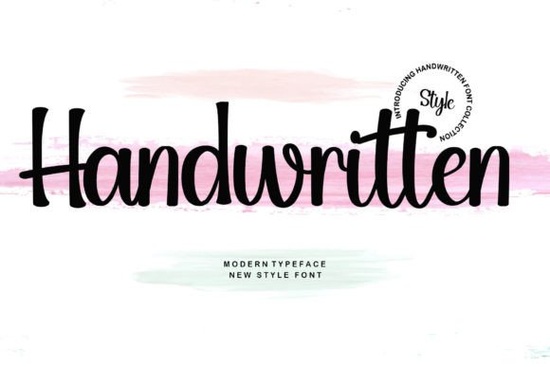
A good handwritten font can completely change the feel of a design. Whether you're creating wedding invitations, social media graphics, or product packaging, the right typeface brings warmth and personality that clean, modern fonts often miss. The Handwritten Font from Creative Fabrica is one of those typefaces that feels both classic and fresh inspired by traditional calligraphy but styled with a contemporary edge. It has clean letterforms, elegant curves, and a natural flow that works across a wide range of creative projects.
If you've been looking for a script font that doesn't feel overused or overly decorative, this one deserves a closer look. Let's break down where it works best, how to pair it, and who it's really made for.
What makes a handwritten font different from a regular script font?
Handwritten fonts mimic the natural strokes of a pen or brush, while many script fonts are more structured and geometric. The difference matters more than you might think. A font like Beautica Font leans into flowing, decorative letterforms. That's great for certain projects. But when you want something that feels personal like a note written by hand a true handwritten style is the better choice.
Handwritten fonts tend to work well when you want your design to feel approachable and human. They carry a sense of authenticity that resonates with audiences, especially in branding, social media content, and print-on-demand products like greeting cards or quote prints.
Where does the Handwritten Font work best?
This font is versatile enough for many uses, but here are some of the most popular applications:
- Wedding invitations and event stationery The elegant calligraphic influence makes it a natural fit for formal and semi-formal event designs.
- Logo design for small businesses Especially for boutiques, bakeries, florists, and lifestyle brands that want a personal touch.
- Social media graphics Instagram quotes, story headers, and Pinterest pins all benefit from a warm, hand-lettered look.
- Print-on-demand products Mugs, tote bags, t-shirts, and wall art featuring short phrases or names look great in this style.
- Greeting cards and stationery Whether for personal use or to sell, this font adds a crafted, thoughtful quality.
If you work in any of these areas, having a reliable go-to handwritten font saves a lot of time and keeps your work looking consistent.
How does it compare to other popular script fonts?
There's no shortage of script fonts available, so it helps to understand what sets this one apart. Compared to something like the Summer Hipster font, which has a more relaxed, casual vibe, the Handwritten Font carries a slightly more refined tone. It's still personal but leans toward elegance rather than playfulness.
On the other hand, if you're working on projects aimed at a younger or more playful audience, the Cupcake Handmade Duo font pairs a fun display style with a complementary script. It's a solid choice for children's products or party-themed designs.
For projects that need something sweet and simple, the Hello font offers a light, friendly feel that works well for casual branding. And if you love soft, feminine aesthetics, the Pink Pastel font brings that gentle, trendy look that's popular in stationery and planner designs.
The Handwritten Font fits somewhere in the middle of all these refined enough for professional use but warm enough to feel personal. That balance is what makes it useful for such a wide variety of projects.
What should you pair it with?
One of the most common questions about script fonts is how to pair them with other typefaces. Here are a few practical tips:
- Pair it with a clean sans-serif for body text. Fonts like Montserrat, Lato, or Open Sans give your layout contrast and keep things readable.
- Use it sparingly for headlines or accents rather than long paragraphs. Script fonts are meant to stand out, not carry bulk text.
- Adjust letter spacing and size carefully. Handwritten fonts often need a little extra tracking to stay legible, especially at smaller sizes.
- Test it on different backgrounds before finalizing. What looks elegant on white might get lost on a busy pattern.
Take a few minutes to preview the Handwritten Font in your next project mockup before committing. A quick test in context usually tells you more than a specimen sheet ever will.